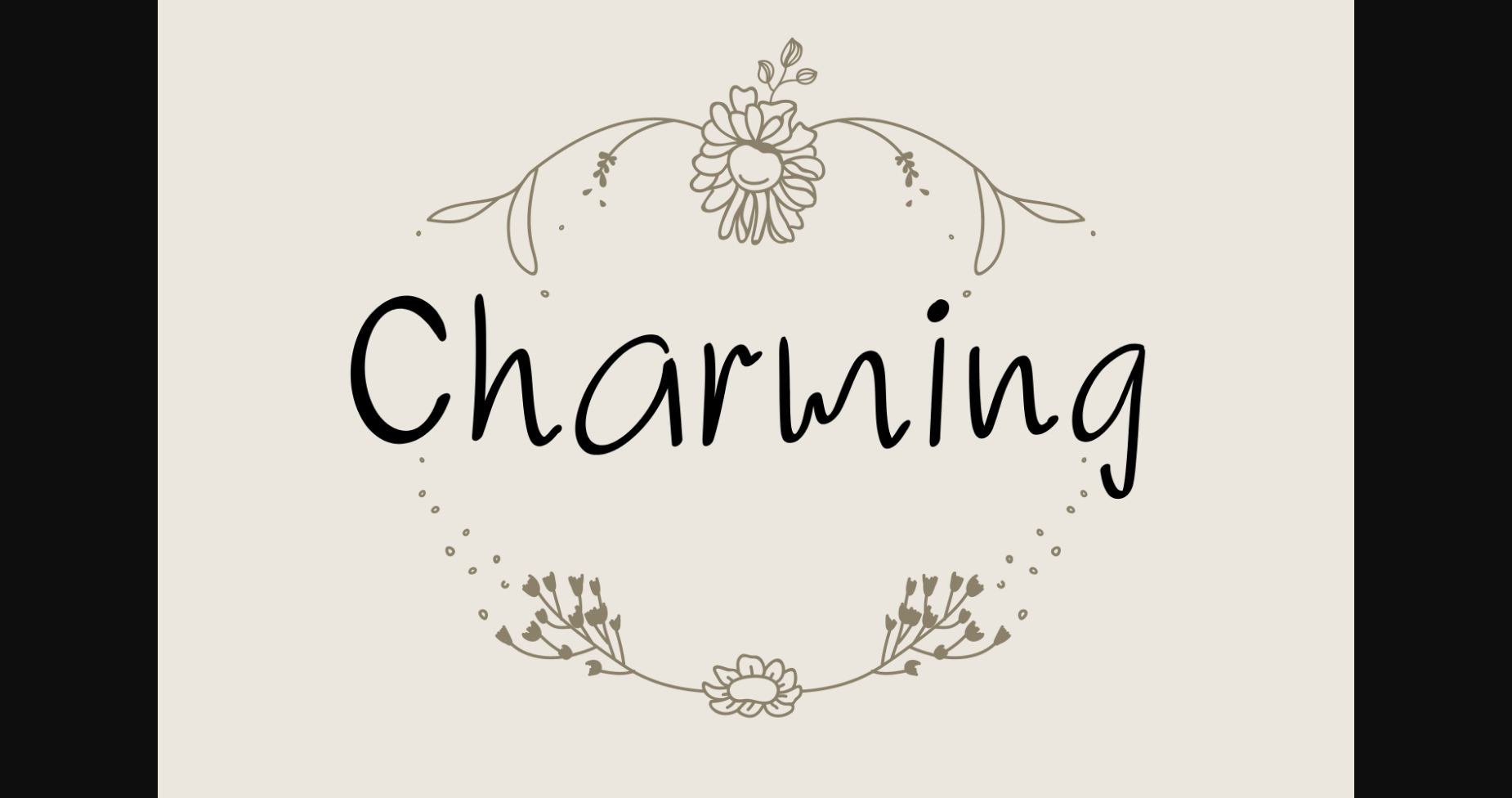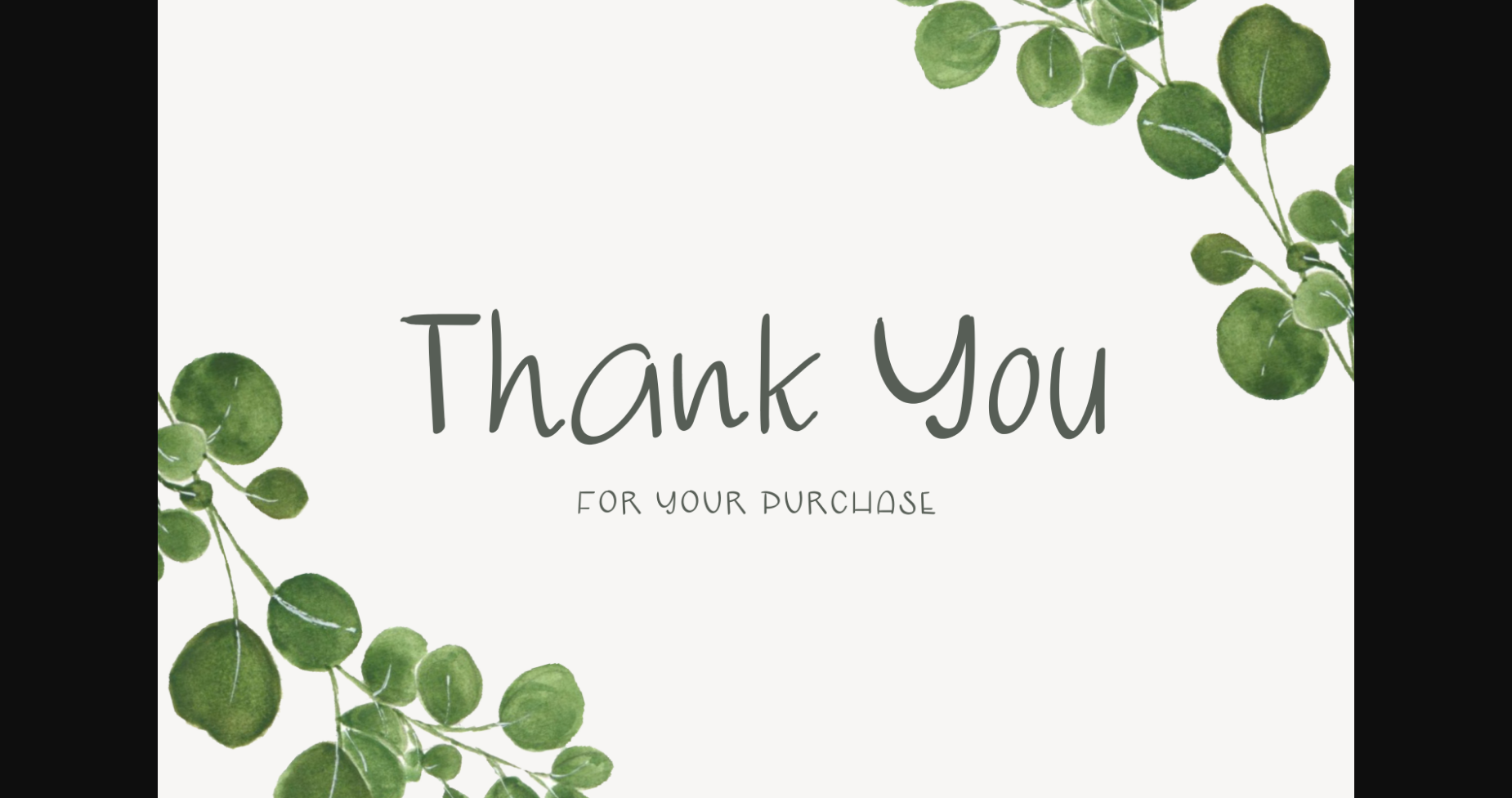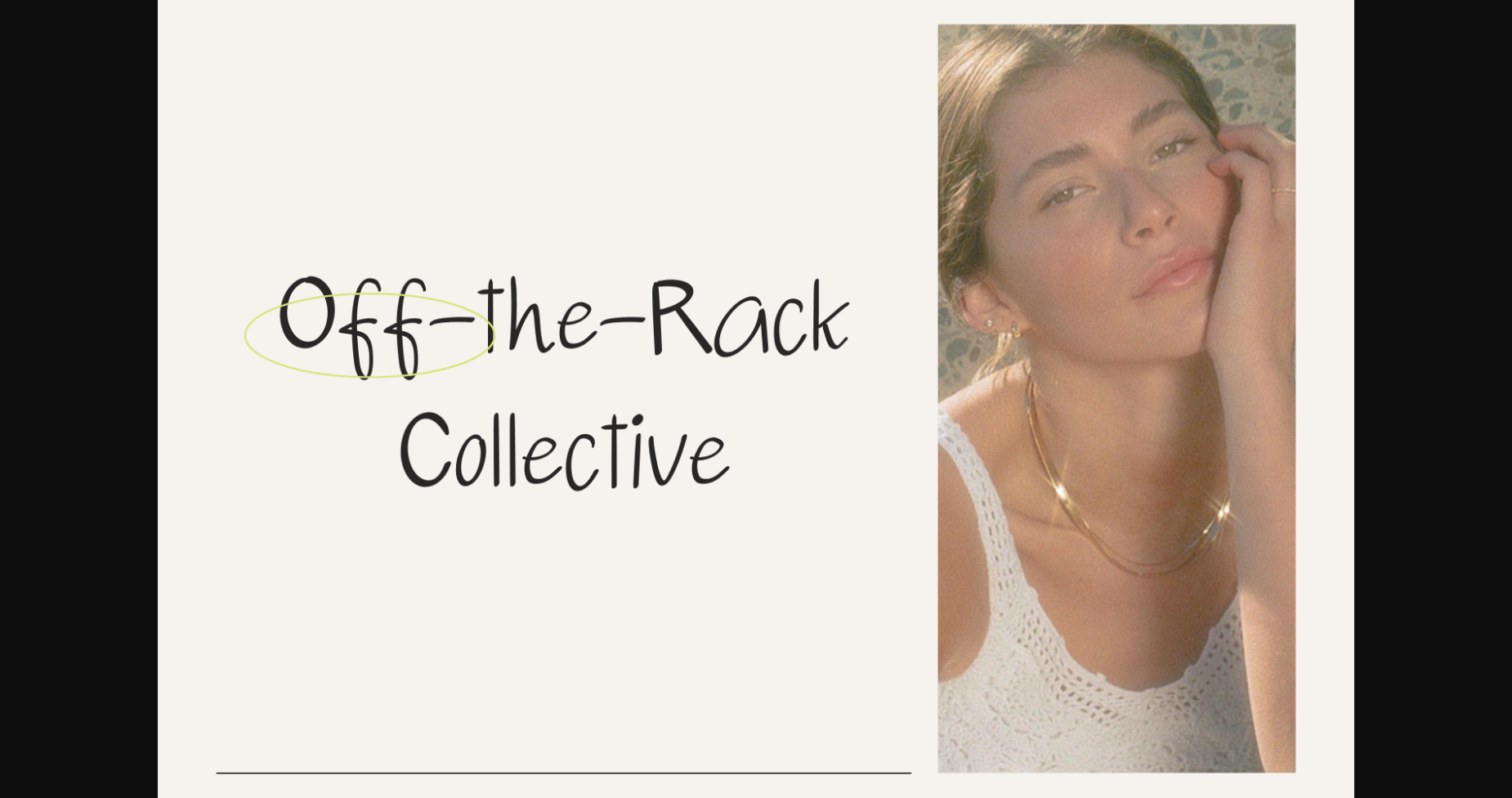
About Charming Font
Charming is a beautiful handwritten font that is appropriate for all projects that call for a lovely script taste, including logos, branding projects, home décor designs, product packaging, mugs, quotes, posters, shopping bags, T-shirts, book covers, name cards, invitation cards, greeting cards, labels, photography, watermark, special events, and other lovely projects.